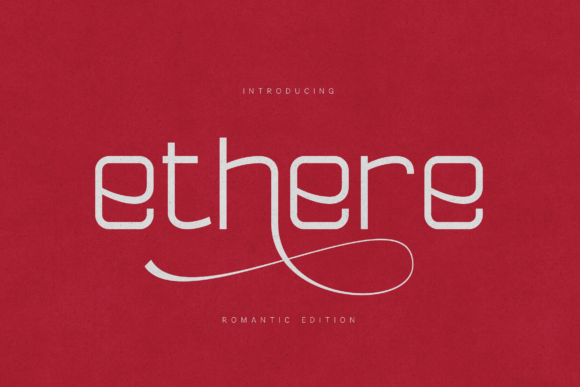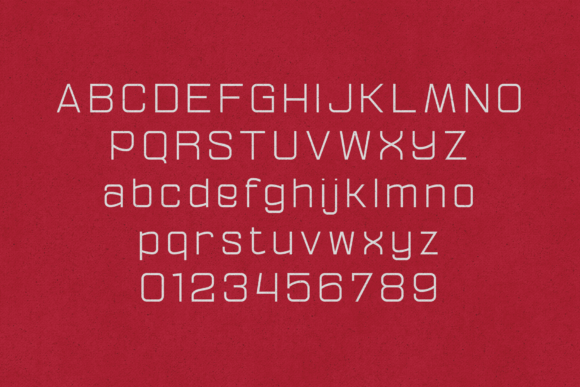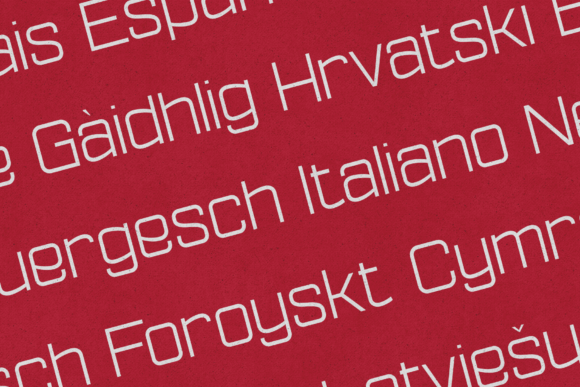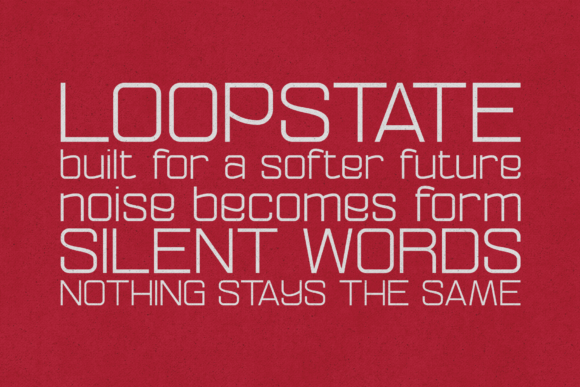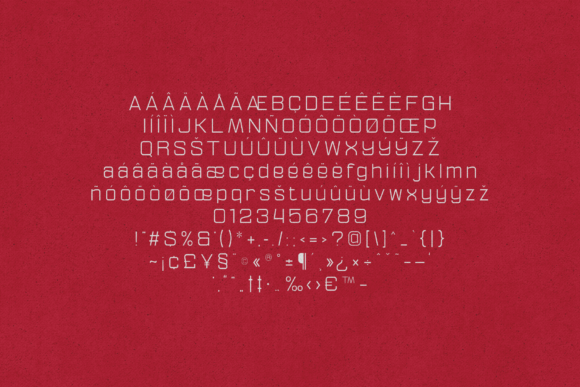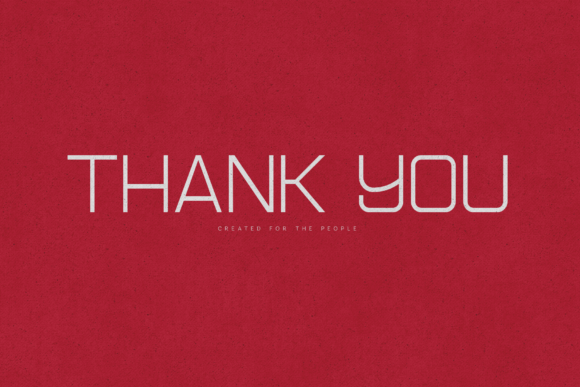
The Perfect Harmony of Clarity and Elegance
As a designer, you know the moment when all the elements come together – the perfect balance of form and function. The colors, the typography, the layout – everything just clicks. And that’s exactly what the Ethere Font does for your designs. This modern geometric sans-serif is more than just a pretty face; it’s a tool that brings elegance and movement to your typography.
With its smooth rounded terminals and clean architectural proportions, Ethere Font is the perfect choice for branding systems that need both clarity and personality. The unique romantic script-style alternate adds a touch of sophistication, making it ideal for a wide range of designs, from tech startups to cosmetics brands and editorial layouts.
Ethere Font Key Features
- Font Family: Ethere Font is a sans-serif font family designed for digital use.
- Resolution: Designed for high-resolution displays, suitable for use at 300 DPI and above.
- Unique Characteristics: Ethere Font features a unique, modern design with clean lines and geometric shapes, making it ideal for digital interfaces and user interfaces.
- Font Size: Available in 7 weights, ranging from Light to Black, to accommodate various design requirements.
Ethere Font Review
As a designer, I was excited to dive into the Ethere Font, and I’m here to share my honest thoughts. Let’s get straight to it.
- The Ethere Font’s unique, futuristic aesthetic is certainly eye-catching. It’s perfect for projects that require a cutting-edge feel.
- The font is highly legible, even at smaller sizes, making it suitable for digital interfaces and other small-scale applications.
- The font’s versatility allows it to work well in a variety of contexts, from tech and gaming to fashion and art.
- The font may be too futuristic for more conservative or traditional designs, potentially making it difficult to use in certain contexts.
- The font’s unique style may not be to everyone’s taste, and some users may find it difficult to read or distracting.
- The font’s limited character set may make it less suitable for languages that require a wide range of characters.
Overall, the Ethere Font is a great choice for designers looking to add a touch of futurism to their projects. While it may have some limitations, its unique aesthetic and versatility make it a valuable addition to any designer’s toolkit.
Tips for Getting the Most Out of Ethere Font
To maximize the effectiveness of the Ethere Font, consider the following tips:
Use it for titles and headings to add a touch of elegance and sophistication.
Pair it with a clean and simple design to avoid visual clutter.
The Ethere Font is ideal for:
High-end branding and marketing materials.
Luxury product packaging and labeling.
Designing upscale websites and digital platforms.
Alternatives to Ethere Font for Designers
Ethere Font is a popular font known for its elegant and modern design. However, it may not be the best fit for every design project. Here are a few alternatives that designers can consider.
Playfair Display is a luxurious and elegant font that is perfect for high-end branding and advertising projects. It has a similar classic feel to Ethere Font but with more ornate details and a more dramatic flair. Use it for projects that require sophistication and glamour.
Comparison to Ethere Font: While both fonts are elegant, Playfair Display is more ornate and luxurious, making it better suited for high-end projects.
Great Vibes is a modern and elegant font that is perfect for branding and advertising projects that require a touch of sophistication. It has a similar feel to Ethere Font but with a more relaxed and casual tone. Use it for projects that require a sense of elegance and refinement.
Comparison to Ethere Font: Great Vibes is more modern and relaxed than Ethere Font, making it better suited for projects that require a more casual tone.